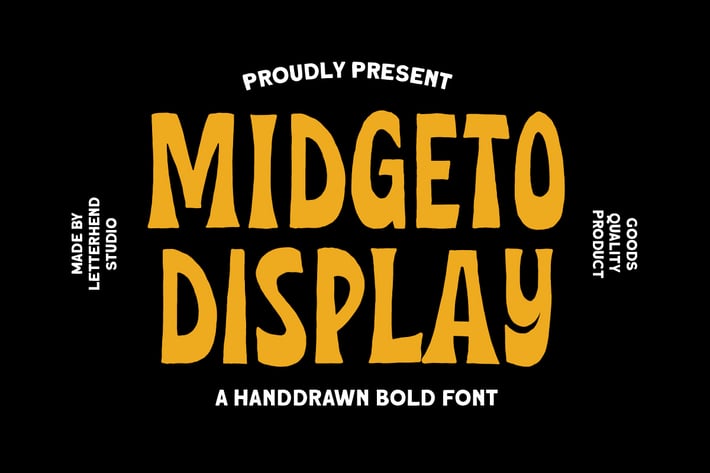
Midgeto Display - Handdrawn Font
Introducing, Midgeto Display - A hand drawn display font. This font has unique shape, very suitable for casual and playful theme design. This font also perfectly made to be applied especially in logo, and the other various formal forms such as invitations, labels, logos, magazines, books, greeting / wedding cards, packaging, fashion, make up, stationery, novels, labels or any type of advertising purpose.